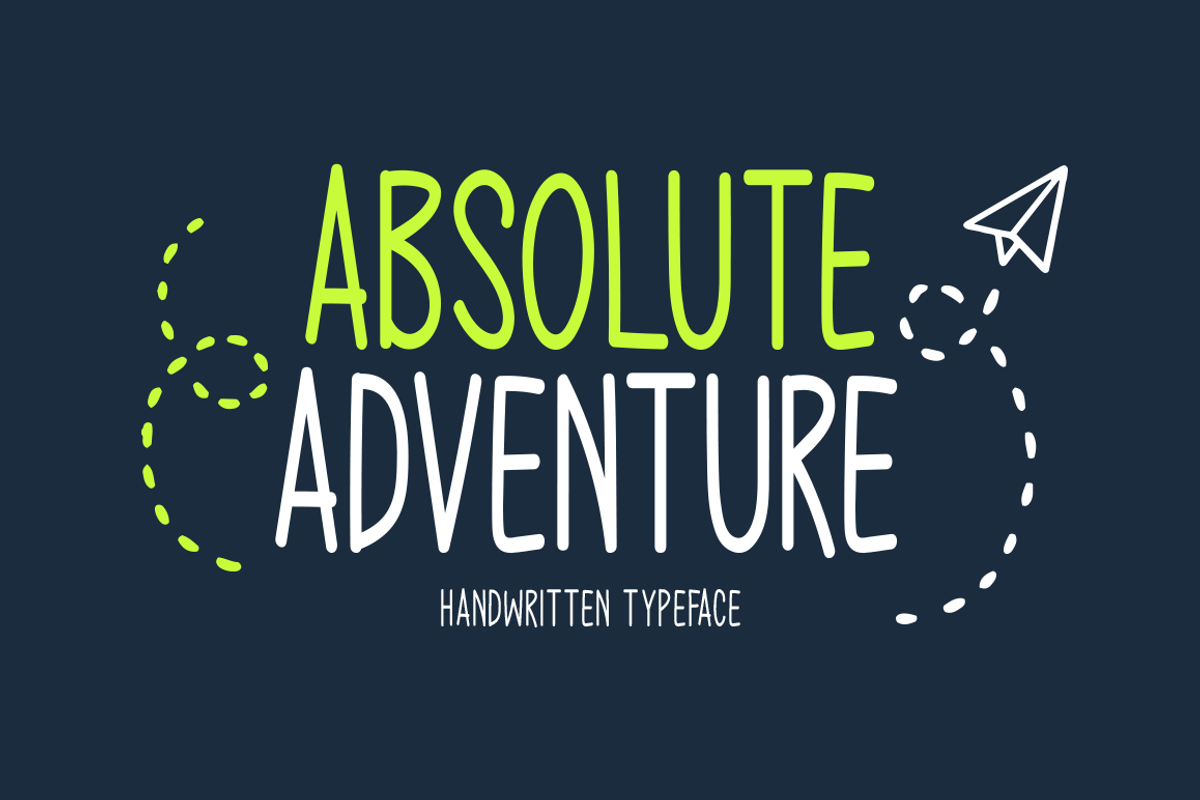
Absolute Adventure Typeface Free Download
Gear up your designs with bold energy and rugged personality using Absolute Adventure Typeface Free Download. This adventurous display font is perfect for outdoor branding, travel posters, nature-themed packaging, and vintage-inspired logos that aim to inspire exploration and freedom.
With its strong, rustic letterforms and handcrafted feel, Absolute Adventure captures the spirit of the wild. It works beautifully on apparel, signage, and marketing materials that need to convey strength and authenticity. The font includes uppercase letters, numerals, and essential punctuation—great for trying out in mockups and experimental layouts.